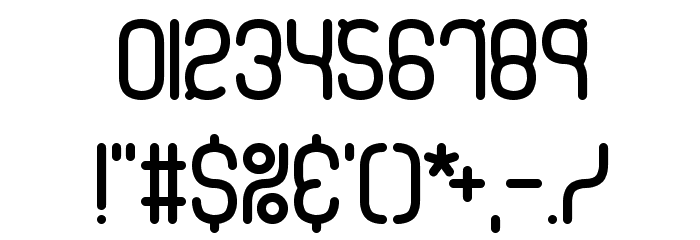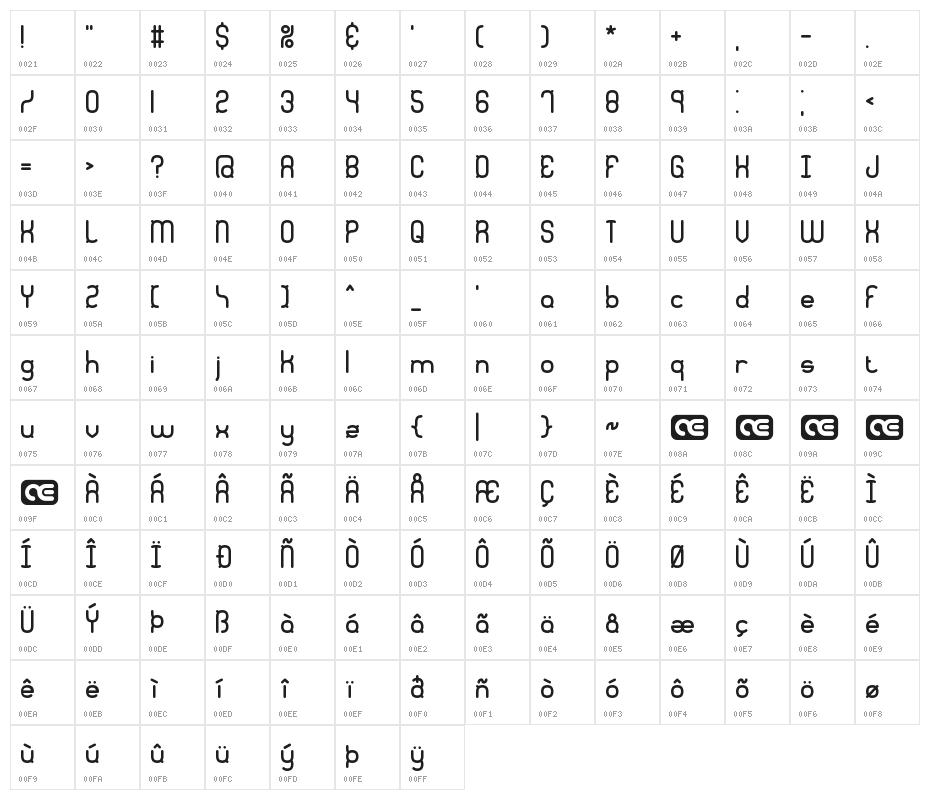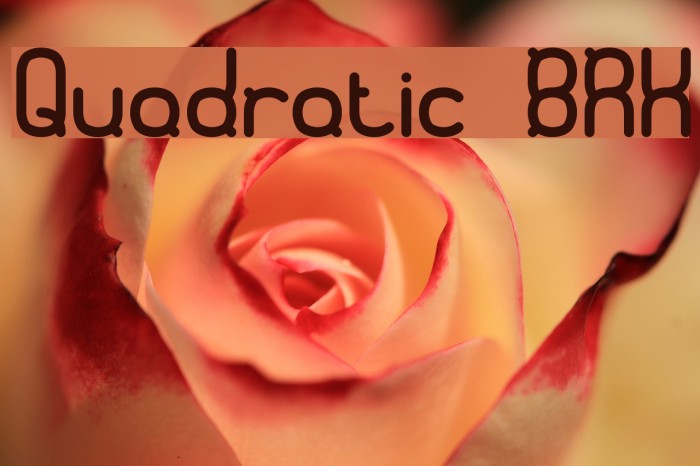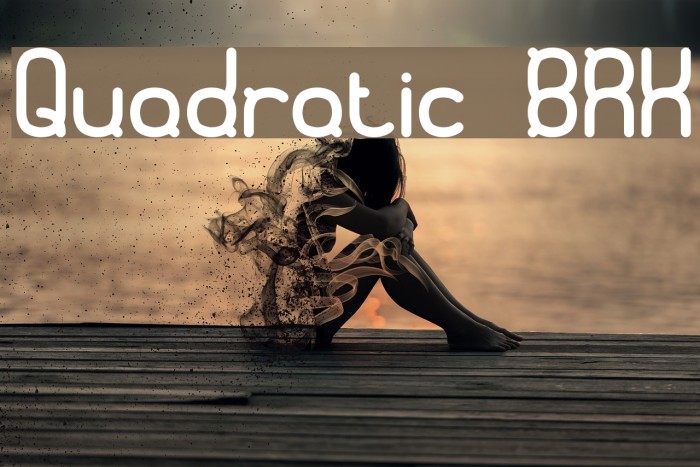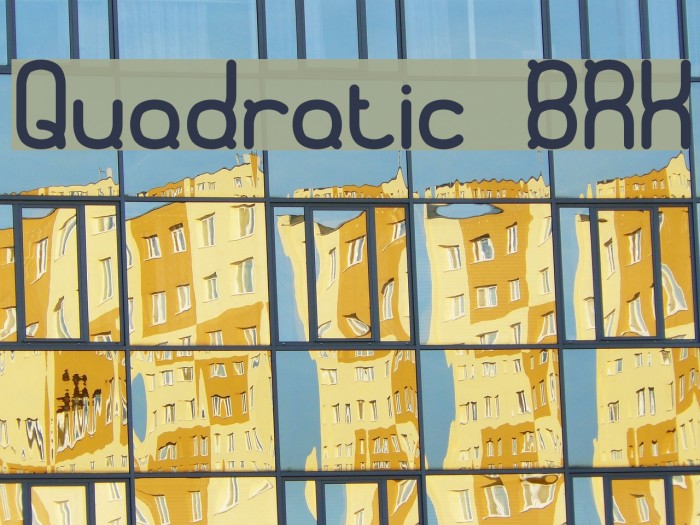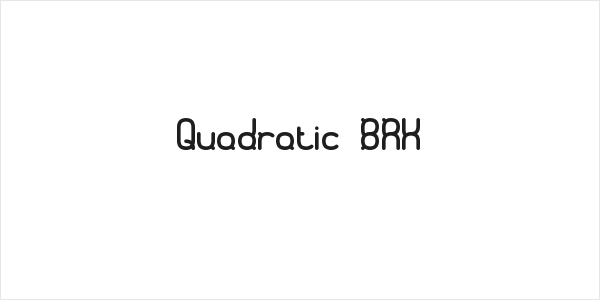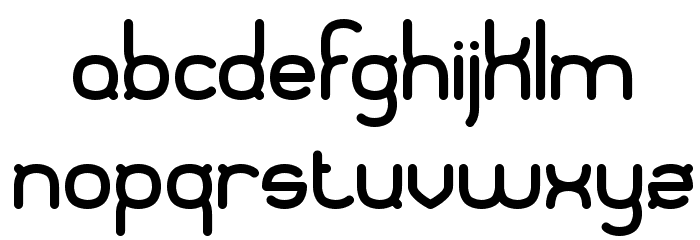
Quadratic BRK Font
Quadratic BRK Description
This font features a unique, rounded design with consistent stroke thickness, giving it a playful yet structured appearance. The characters are formed with smooth curves and a uniform line weight, creating a cohesive and modern look. The uppercase and lowercase letters maintain a similar style, with the lowercase letters slightly more compact. Numbers and special characters follow the same design principles, ensuring a harmonious overall appearance. The font's rounded edges and consistent width make it suitable for a variety of creative applications.